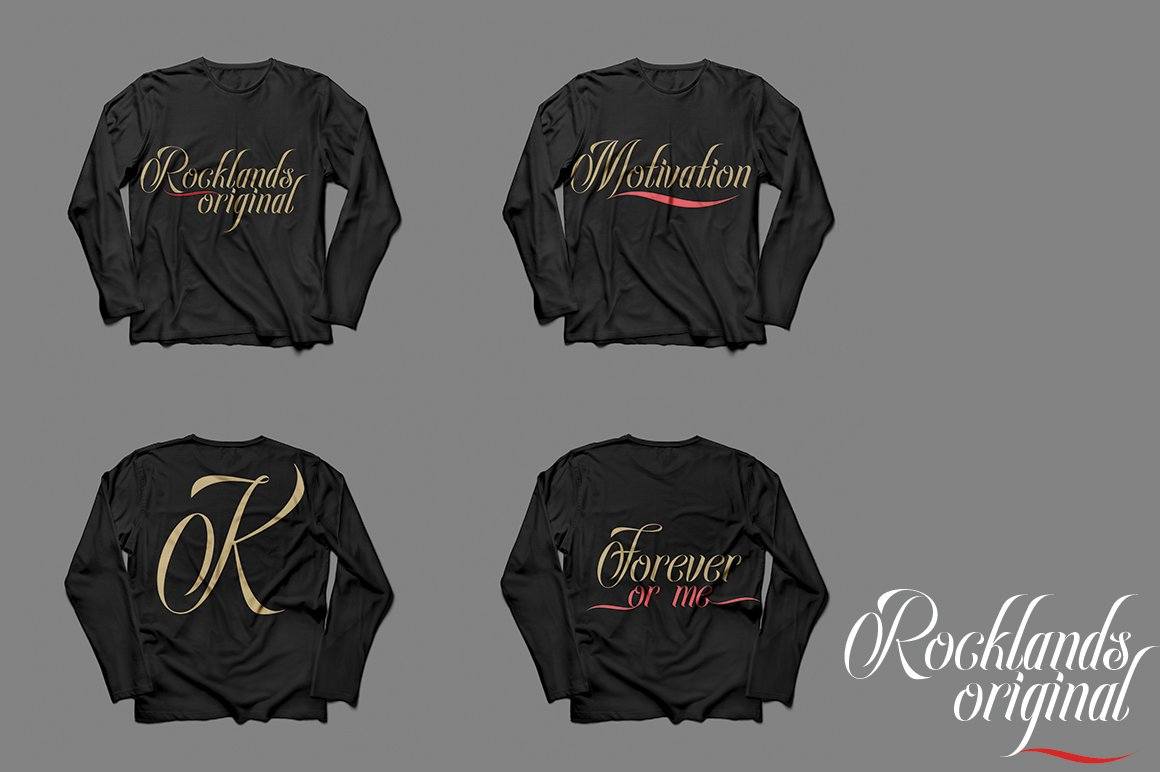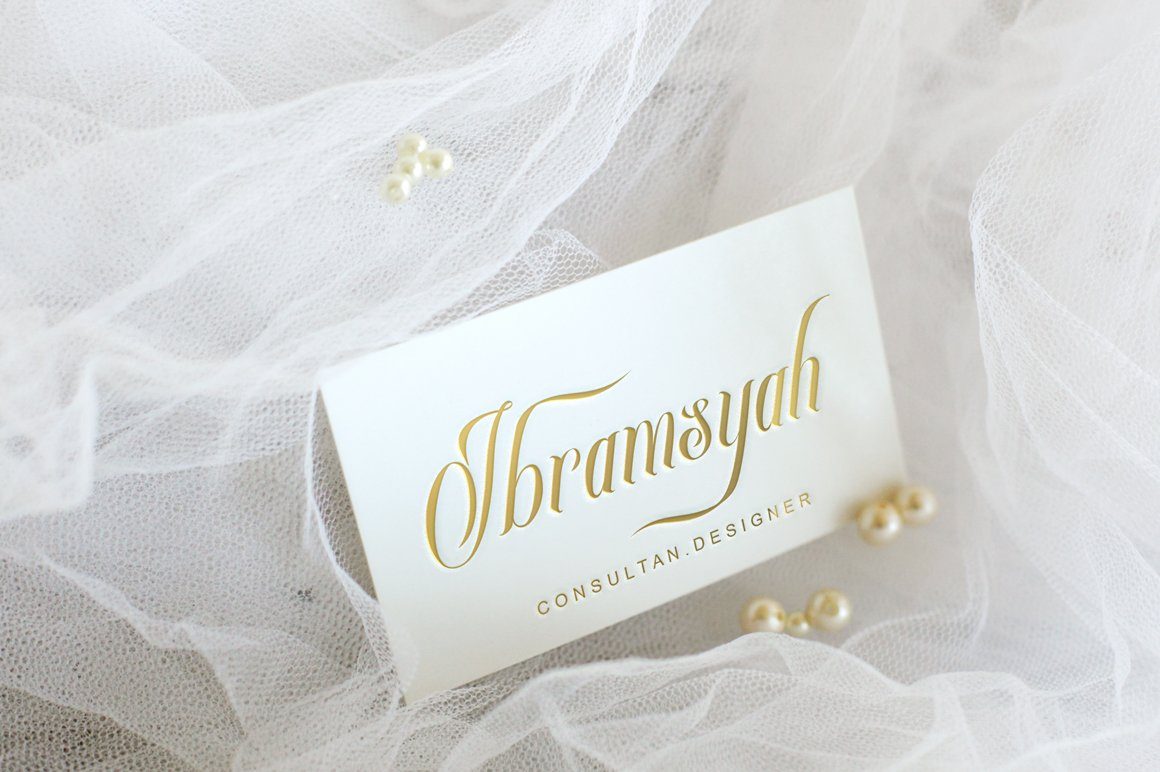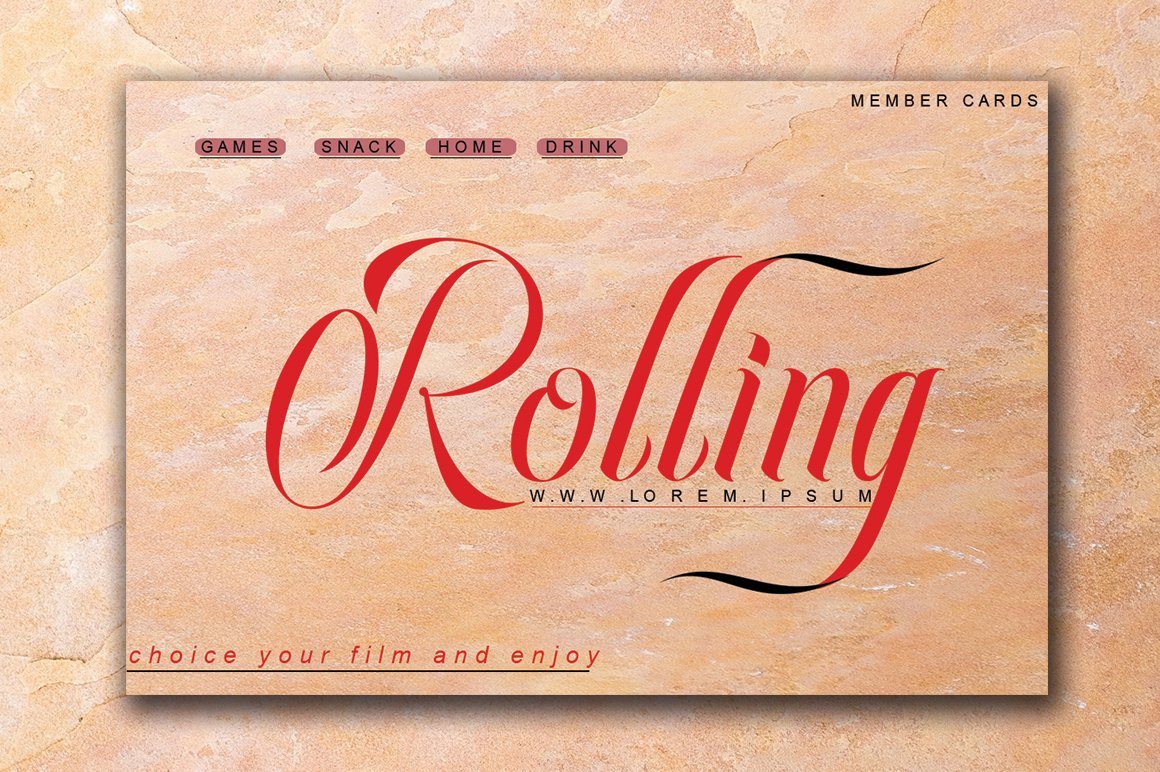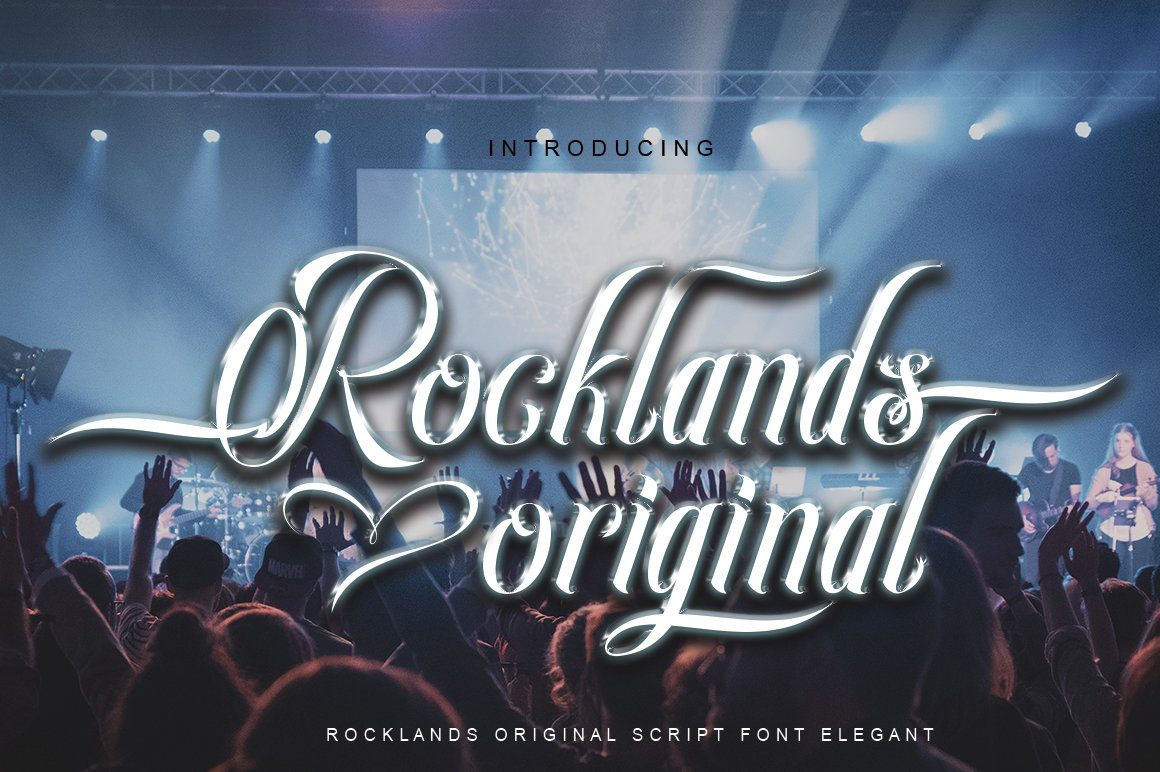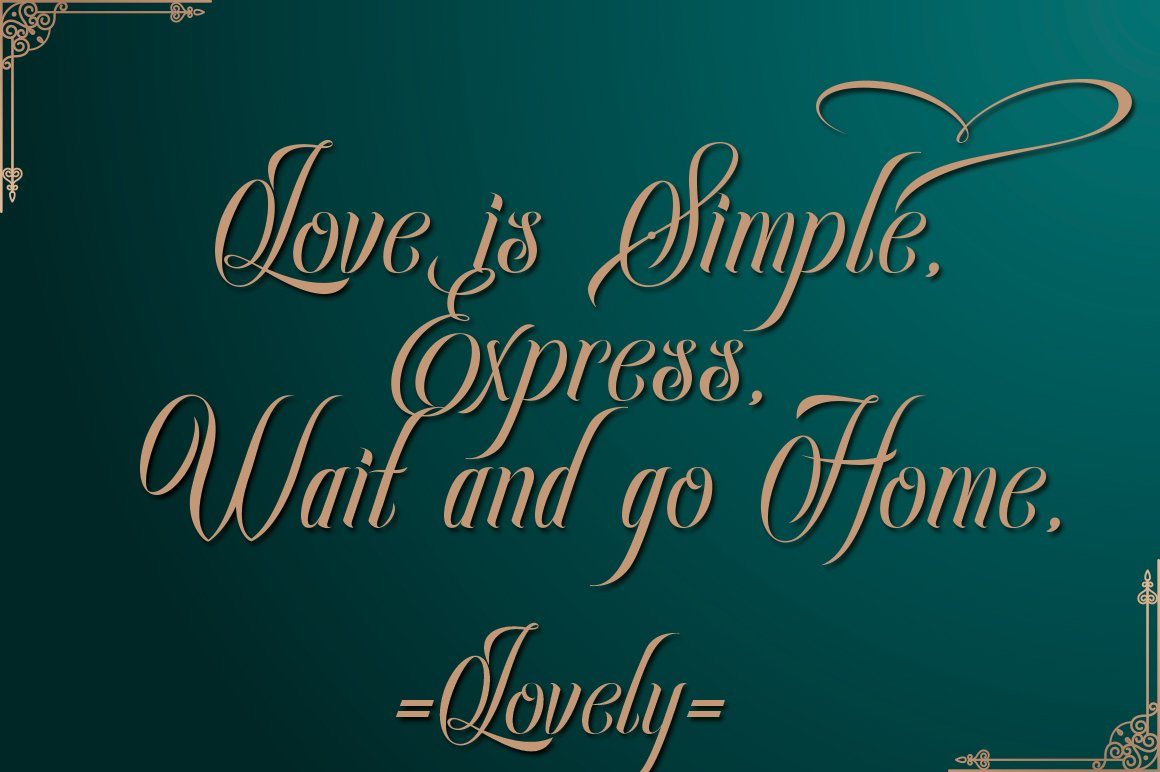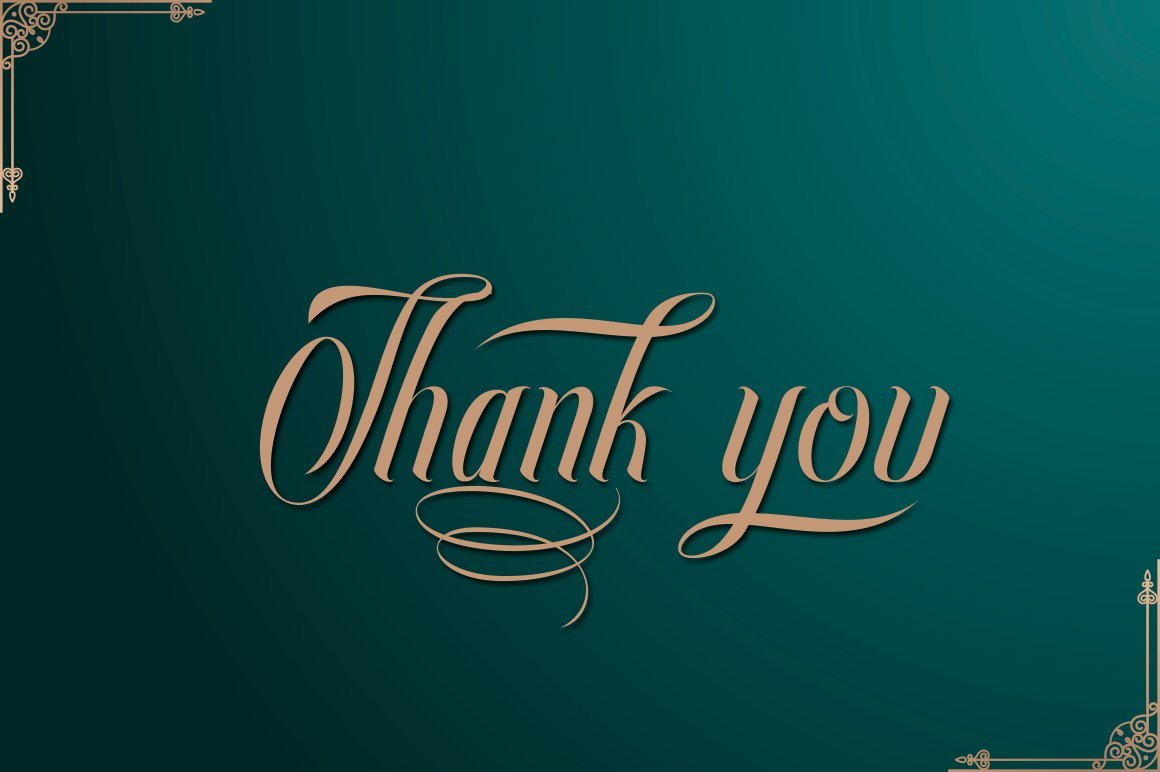
Rocklands Original is challigraphy modren include : Rocklands Original ttf Rocklands Original otf Alternate PUA Encode / Character Maps Numerick,Punctuation Thank you very much JH-Creativefont Regard